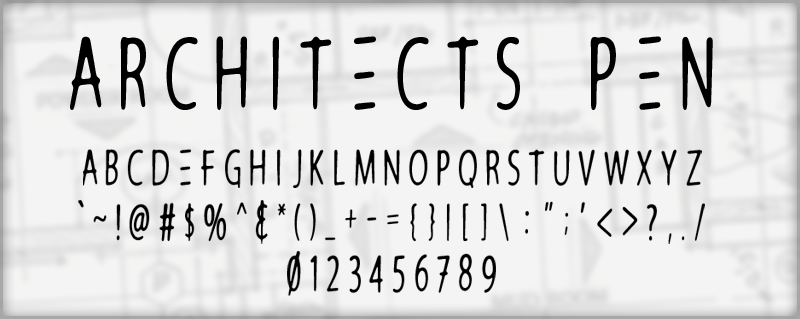
Font name: | Architects Pen |
Author: | Michael Hassler |
Note by Michael Hassler | |
Architects Pen is a handwritten font. Inspired by the straight precise but hand wrote letters from sketches and blueprints. This font would be great for projects where a clean hand wrote style look is needed. Free for personal use. For commercial licensing, please see http://hassified.blogspot.com/ Thanks! |